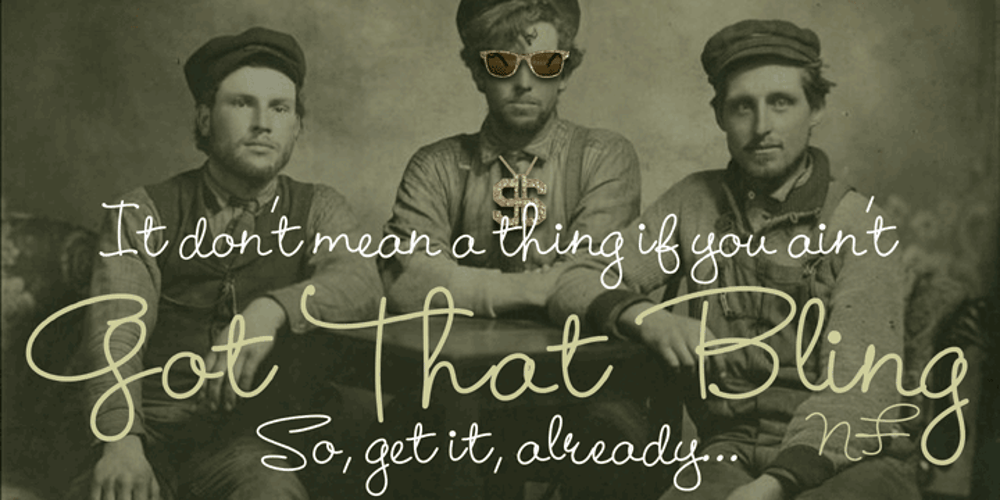
Got That Bling NF
Got That Bling NF font
Got That Bling NF Font Family was designed by Nick Curtis, Al Mack and published by Nick’s Fonts. Got That Bling NF contains 1 styles and family package options. Walter Foster art books strike again, this time with a bouncy script based on the work of Al Mack, from his Lettering: Brush & Pen in the Single Stroke. Light and lively, this typeface proves that it don’t mean a thing if you ain’t… The Opentype version of this font supports Unicode 1250 (Central European) languages, as well as Unicode 1252 (Latin) languages.